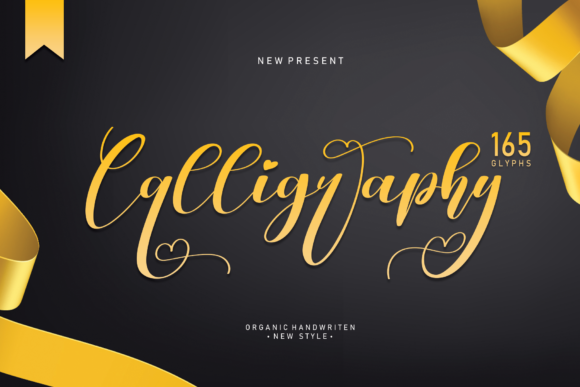
The Magic of Handwritten Touch in Digital Design
As I sat at my desk, staring at a blank page, I couldn’t help but feel a sense of excitement and trepidation. It was the start of a new project, and I was determined to make it special. I wanted to create something that would transport my audience to a world of elegance and refinement. And then, it hit me – the perfect solution: a beautiful, flowing font that would add a touch of luxury to my design.
Enter the Calligraphy Font, a stunning typeface that brings the romance of handwritten script to the digital world. With its delicate characters dancing along the baseline, this font is a designer’s dream come true. Not only does it add a touch of sophistication to any project, but it’s also incredibly versatile, making it a valuable asset for designers of all levels.
Calligraphy Font Key Features
- Font Style: Elegant, cursive, and ornate, ideal for formal and decorative purposes.
- Unique Characteristics: Distinctive flourishes, swashes, and connecting strokes that evoke a sense of sophistication and luxury.
Calligraphy Font Review
Overall, I think the Calligraphy Font is a great choice for creative projects that need a touch of elegance and sophistication. Here are some things that I particularly like about it:
- ✨ It’s incredibly versatile and can be used for a wide range of applications, from wedding invitations to luxury branding.
- ✨ The font is highly customizable, allowing you to adjust the size, color, and style to fit your specific needs.
- ✨ The lettering is beautiful and intricate, making it perfect for creating eye-catching graphics and designs.
However, there are a few limitations that I’d like to mention:
- ⚠️ The font can be quite difficult to read in smaller sizes, so it’s best to use it in larger formats.
- ⚠️ Some of the characters may not display correctly in certain software or operating systems, so be sure to test it thoroughly before use.
Overall, I think the Calligraphy Font is a great choice for designers who want to add a touch of luxury and sophistication to their projects. While it has some limitations, the benefits far outweigh the drawbacks. With a little creativity and experimentation, you can achieve some truly stunning results with this font.
Getting the Most Out of Calligraphy Font
For optimal results, use calligraphy font on a high-resolution image or document. Experiment with different font sizes, colors, and styles to achieve the desired effect.
Calligraphy font is commonly used for:
– Special occasion cards and gifts
– Branding and marketing materials
– Digital art and illustrations
Alternatives to Calligraphy Font for Designers
Lobster is a script font that mimics the look of traditional calligraphy. It’s perfect for use in titles, headings, and other areas where a touch of elegance is desired. Lobster is a more modern alternative to Calligraphy Font, with a more fluid and connected look.
Comparison: Lobster is more versatile and can be used in a wider range of applications than Calligraphy Font, which can sometimes feel too ornate.
Pacifico is a beautiful, cursive script font that’s perfect for use in designs that need a touch of sophistication. It’s a great alternative to Calligraphy Font for designs that require a more subtle, elegant look.
Comparison: Pacifico is a more refined and understated alternative to Calligraphy Font, which can sometimes feel too flashy.
Great Vibes is a modern, elegant script font that’s perfect for use in designs that need a touch of sophistication. It’s a great alternative to Calligraphy Font for designs that require a more refined, high-end look.
Can I use a calligraphy font for digital projects?
Yes, you can use a calligraphy font for digital projects, but keep in mind that the font’s appearance may vary depending on the device and software being used. To ensure the best results, choose a font that is designed specifically for digital use, and that is optimized for high-resolution displays. You may also want to